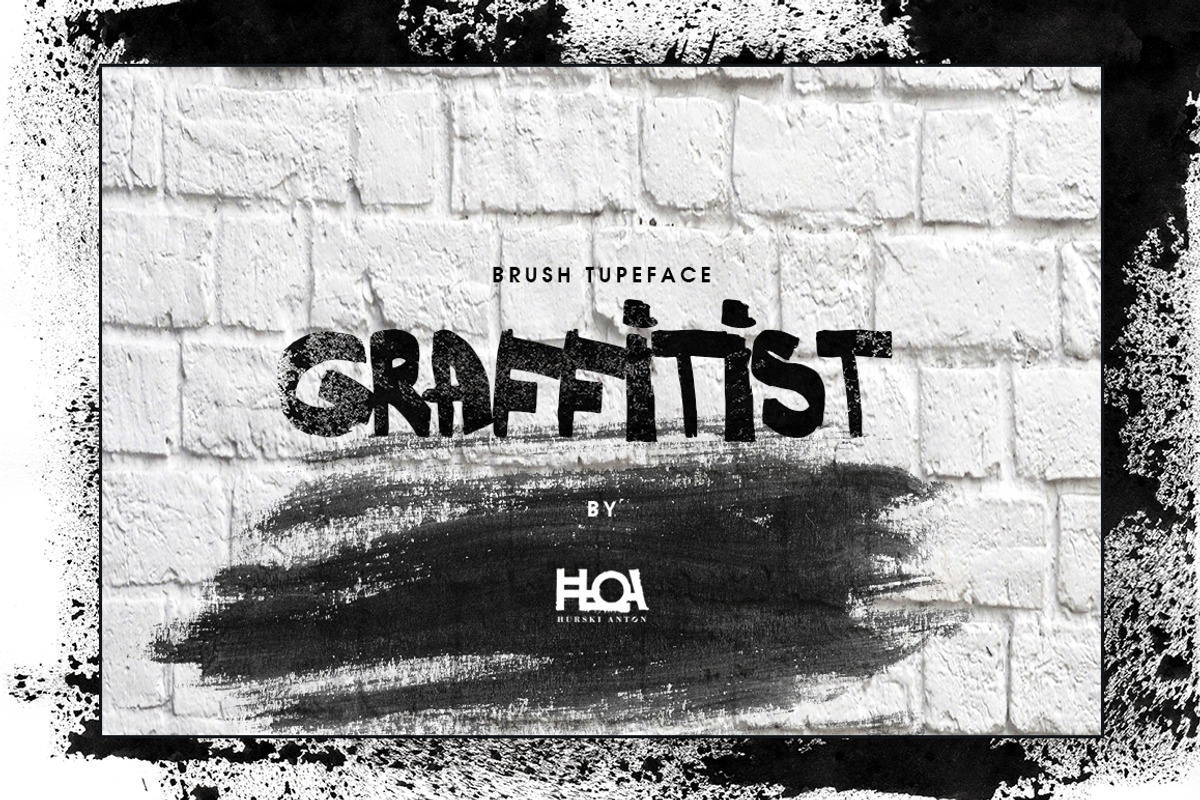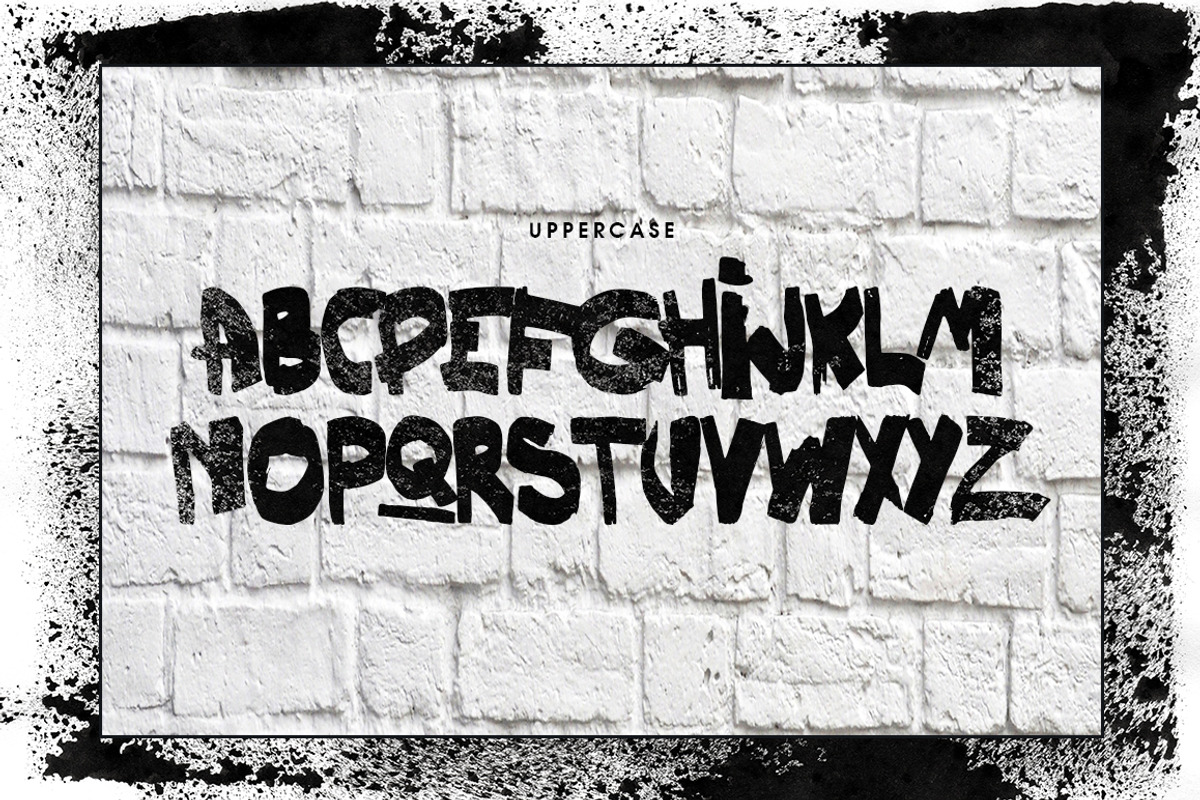
GRAFFITIST- Brush Font
GRAFFITIST- Brush Font by Hurski Anton is a font selected for branding, posters, packaging, typography.
GRAFFITIST- Brush Font by Hurski Anton fits naturally into Branding, posters, packaging, typography.